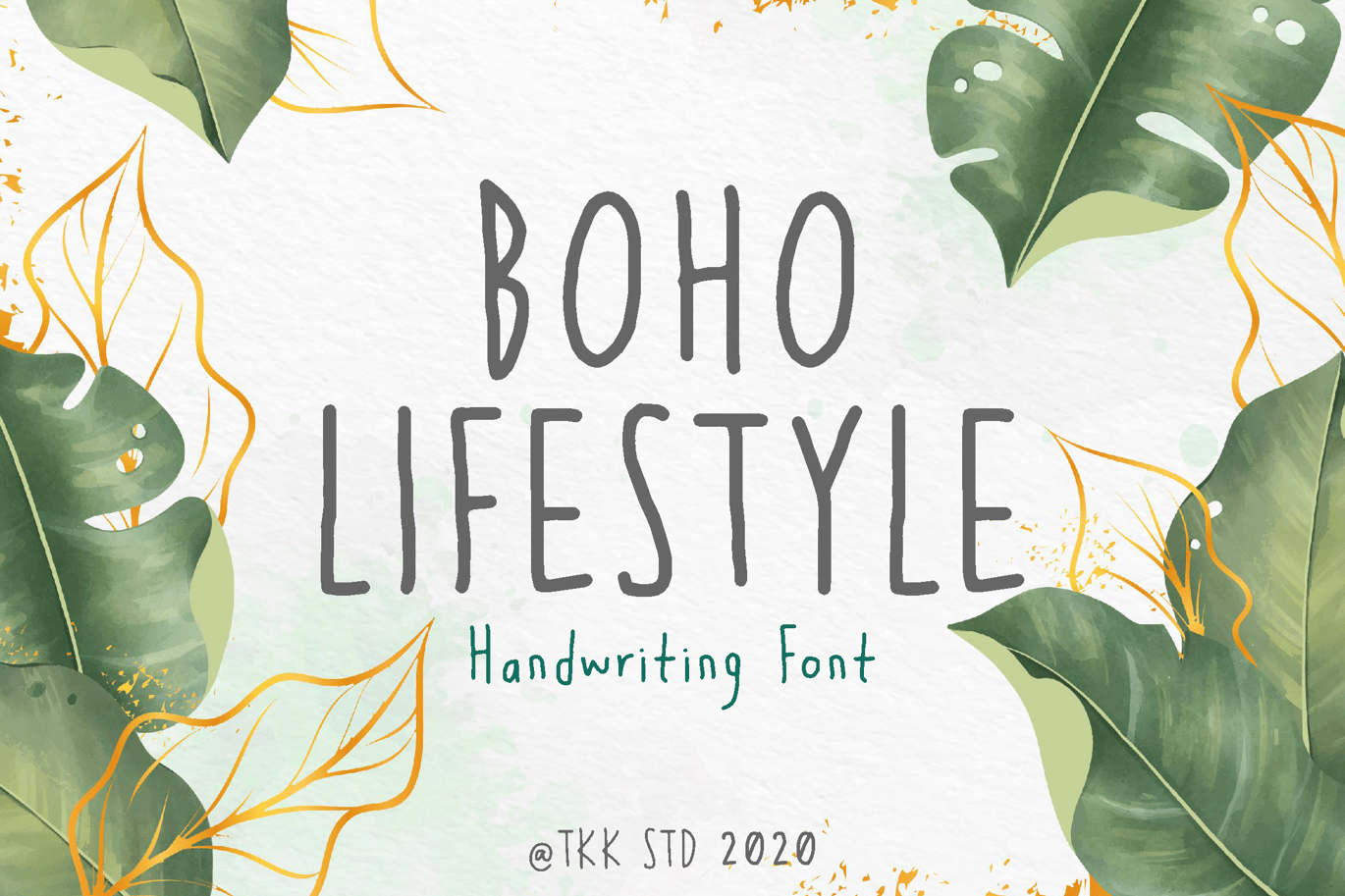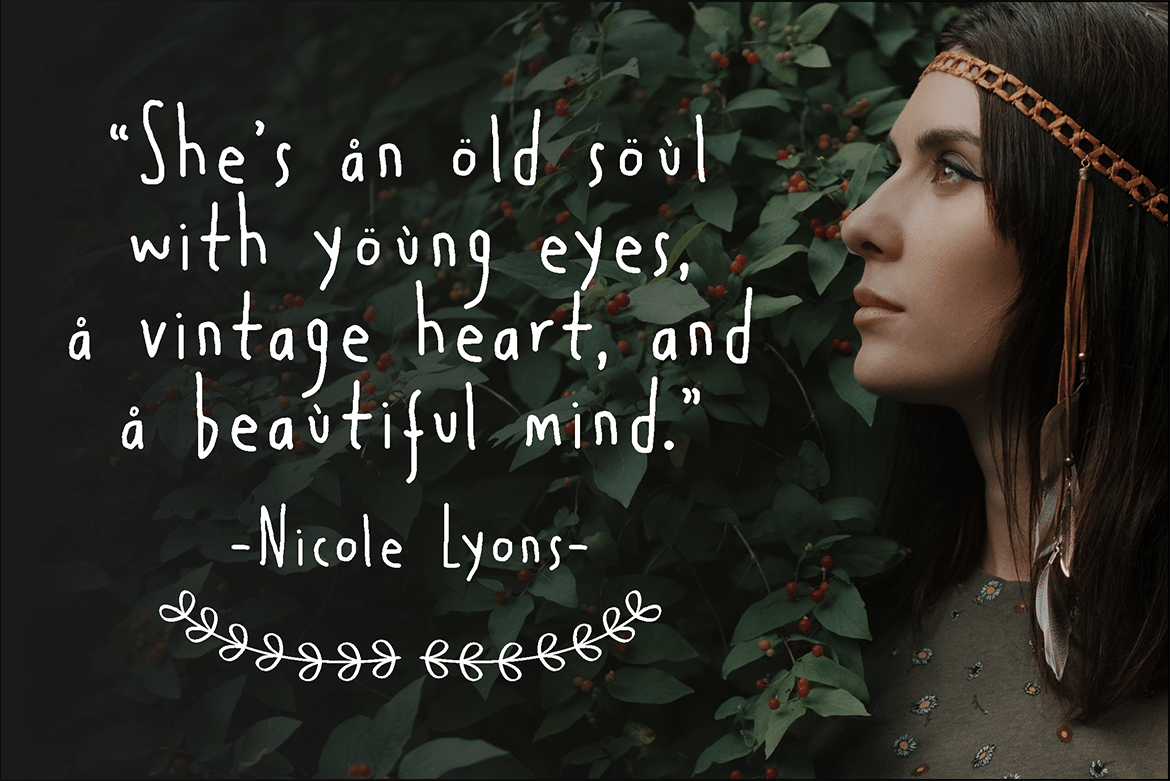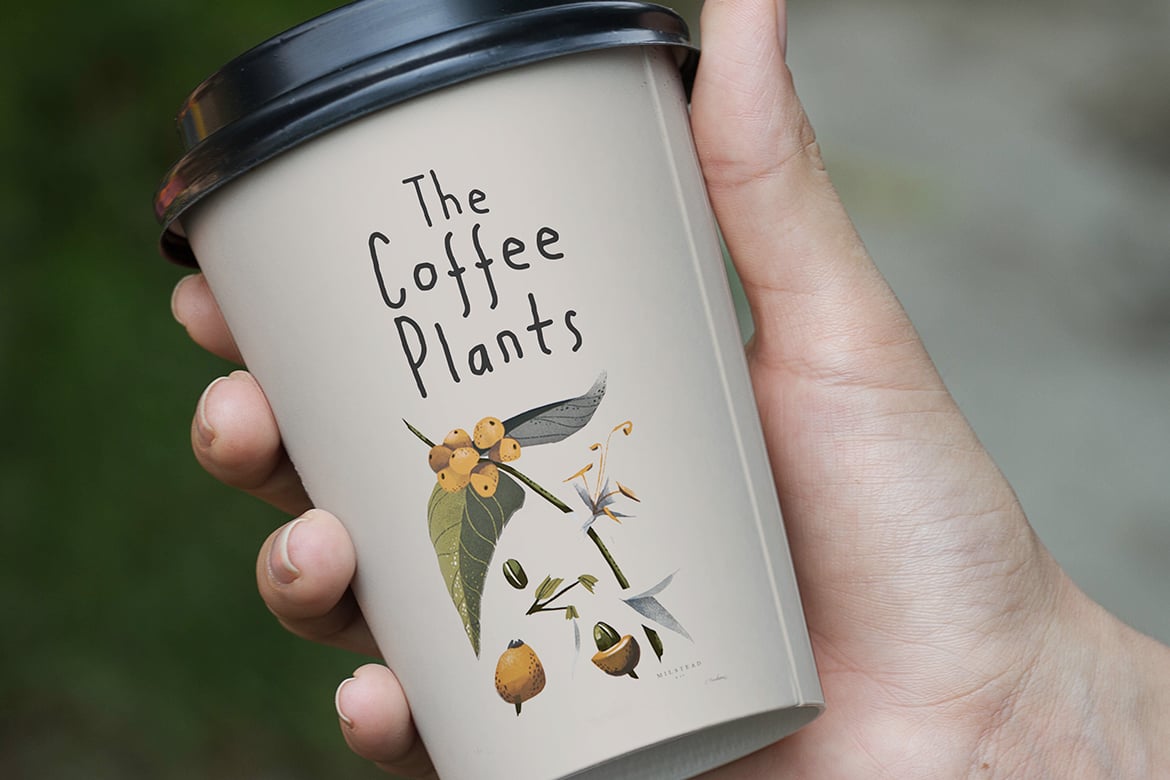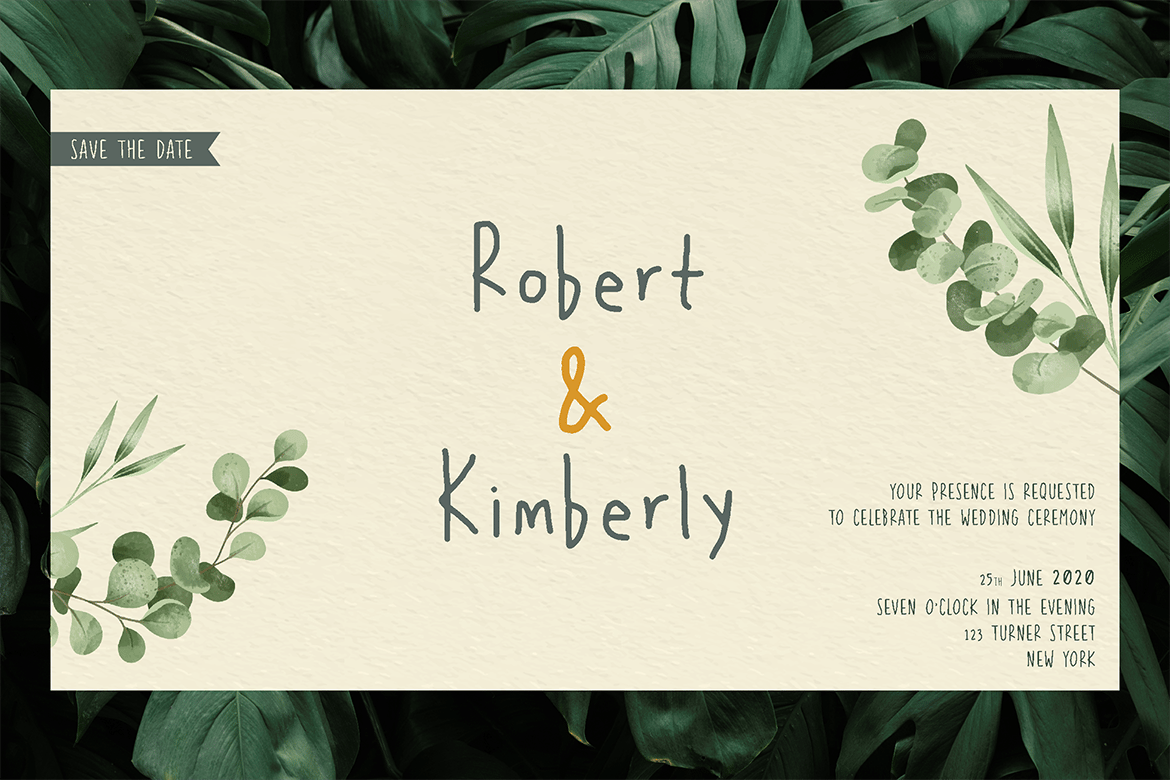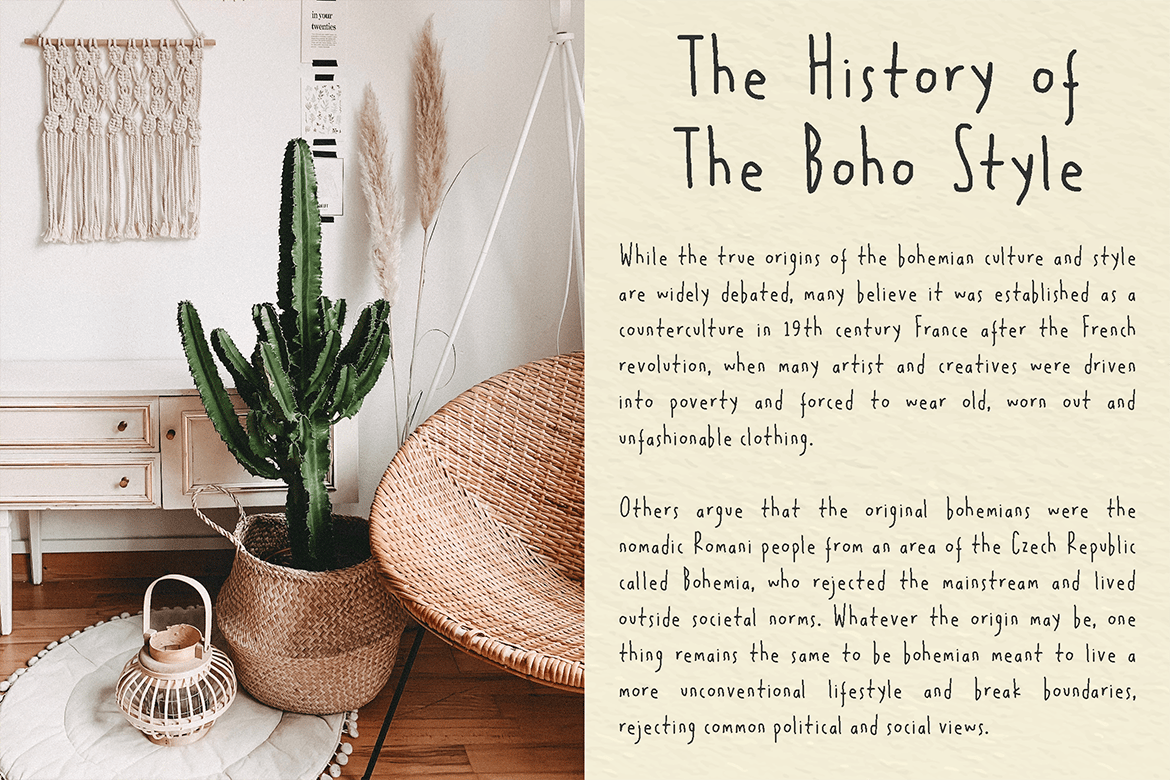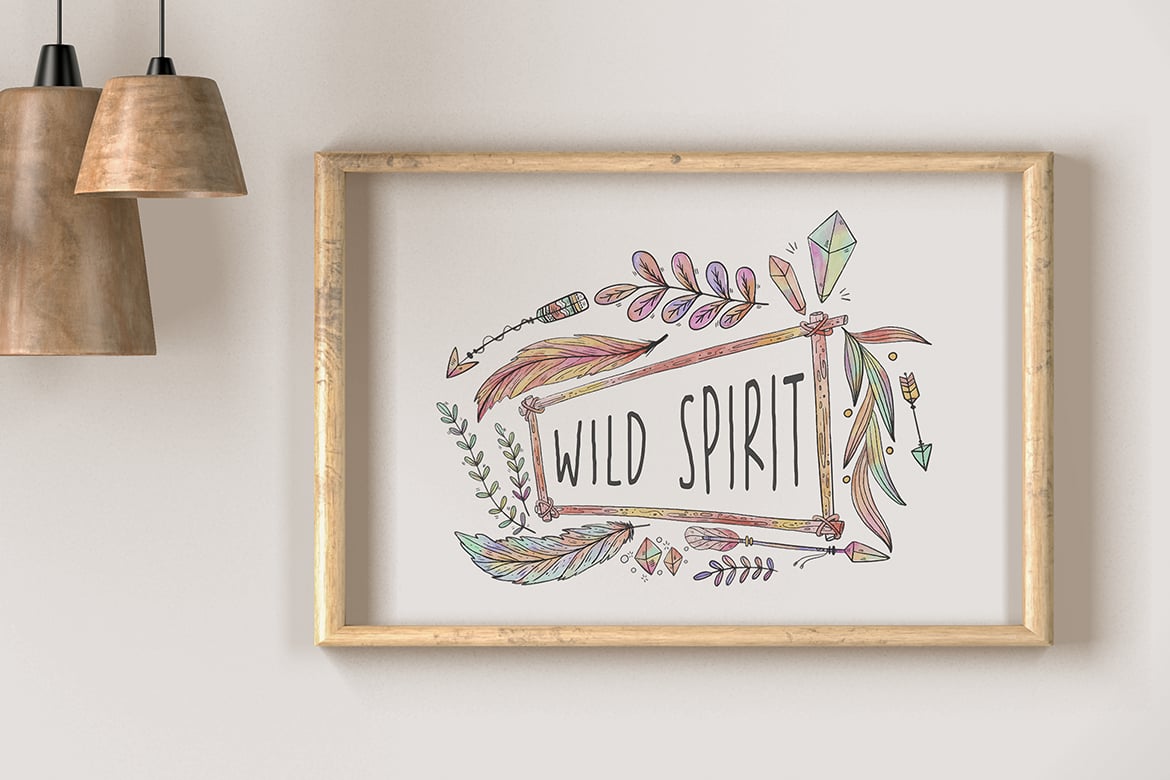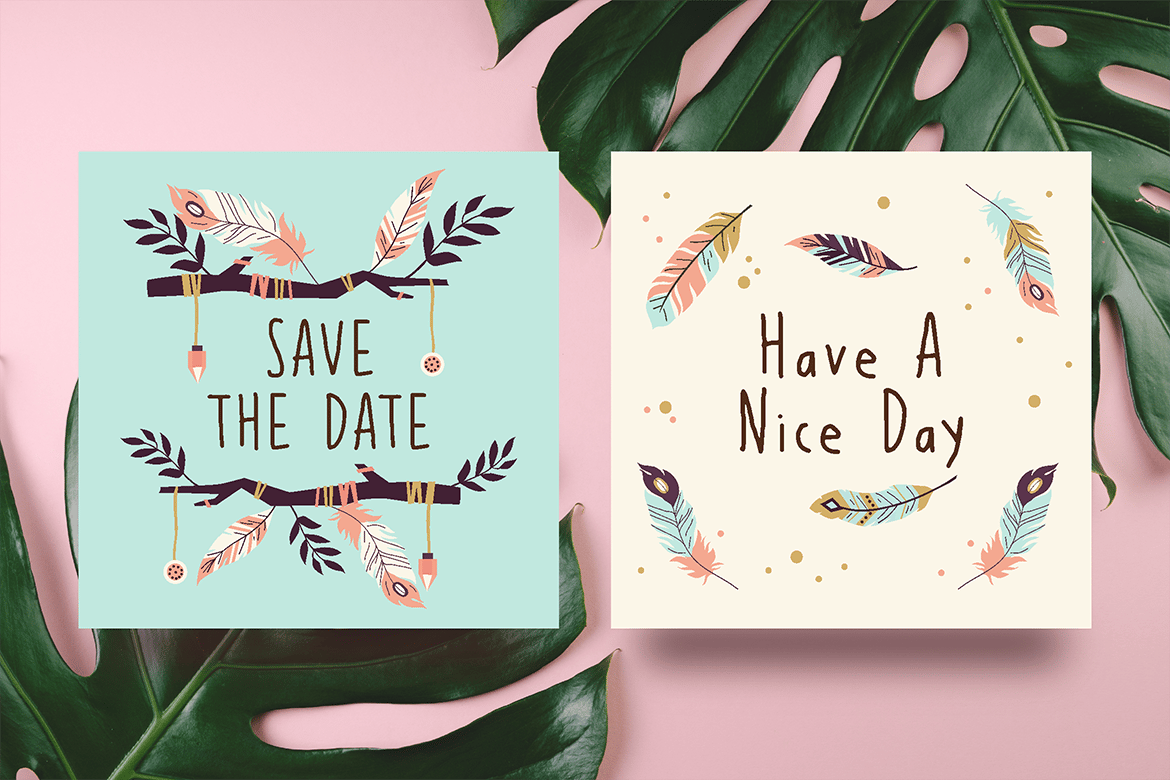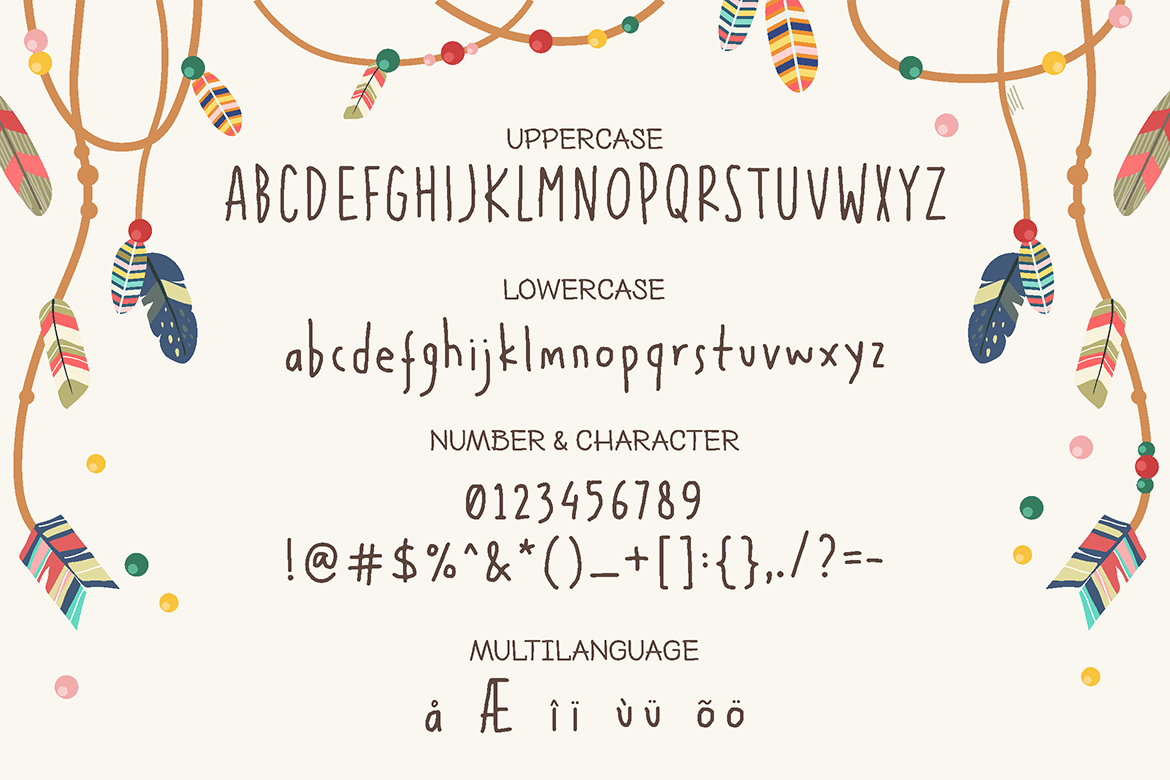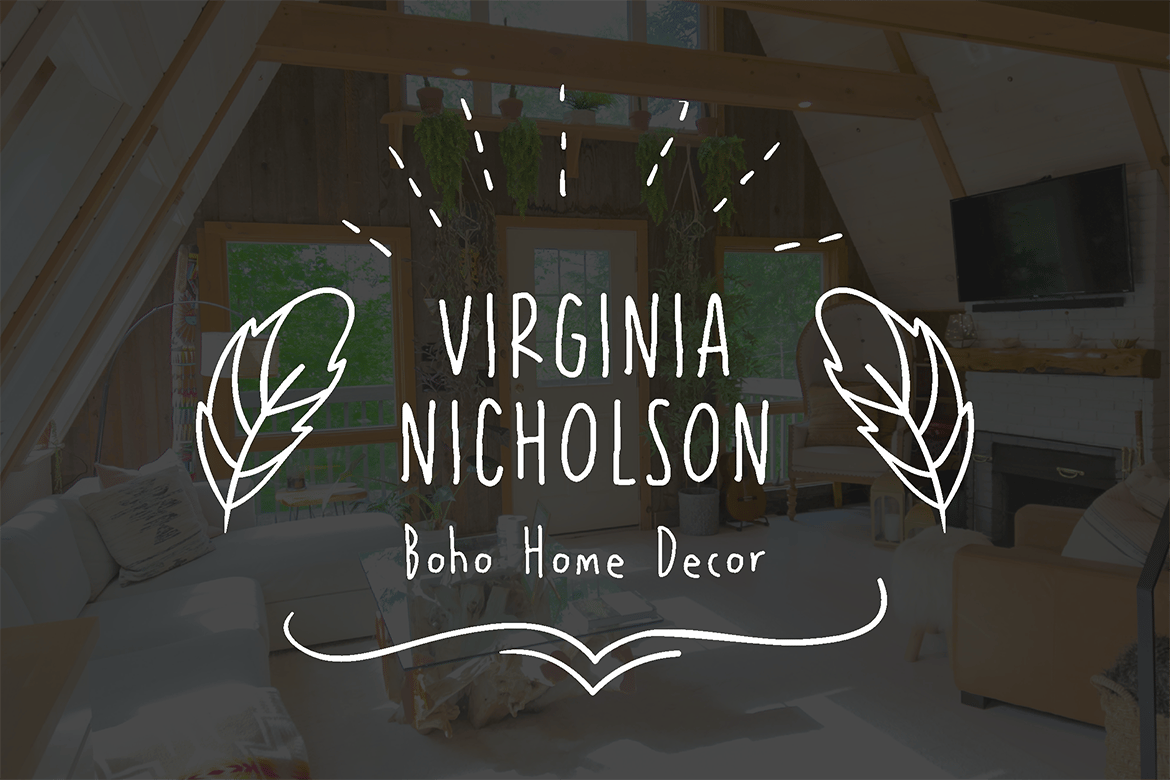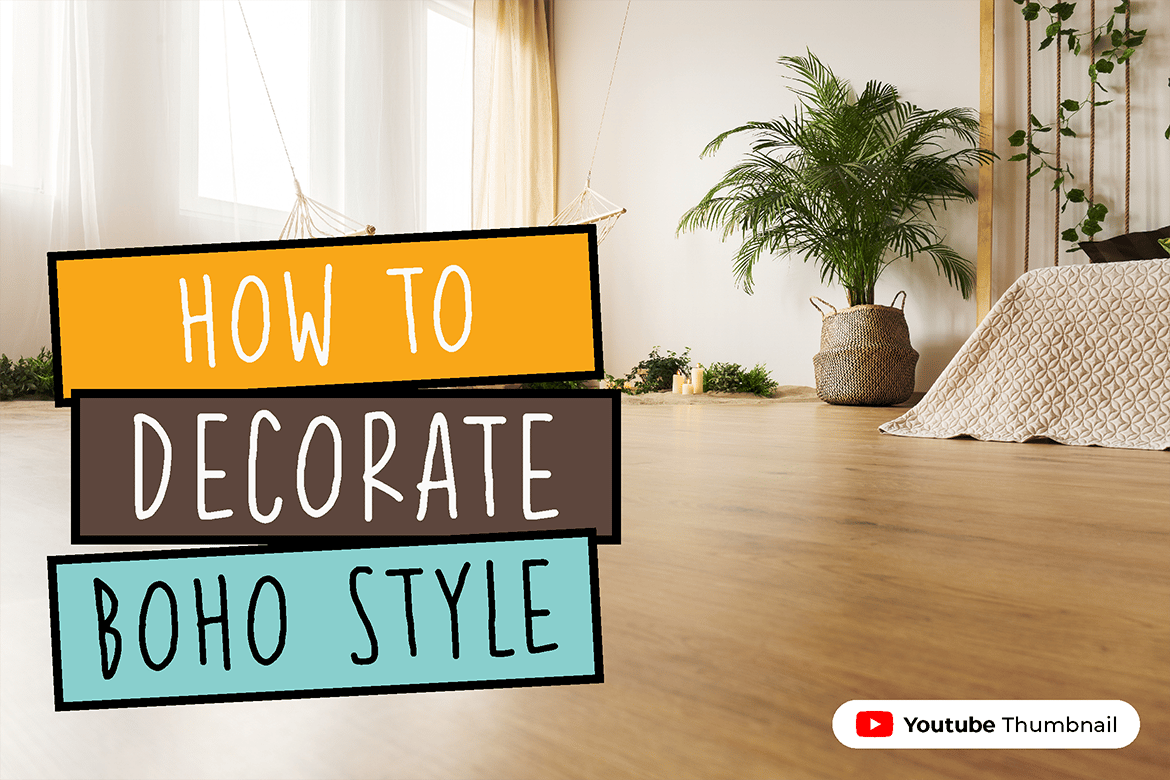
Boho Lifestyle – Cute Girly Font
Boho Lifestyle – indie and chic flower font
Boho Lifestyle lives on its name.
it bring a bohemian feel, and retro touch on everything it touch.
Suit perfectly for instagram post, instagram story, boho and scandi interior poster, japandi interior post, home decoration, boho furniture catalogue, boho invitation card, wall decor, leaflet, brochure for any boho theme event, boho theme youtube channels, youtube cover, youtube thumbnail, subtitle for a bohemian theme song and so on…